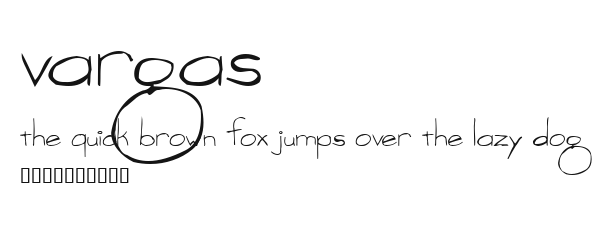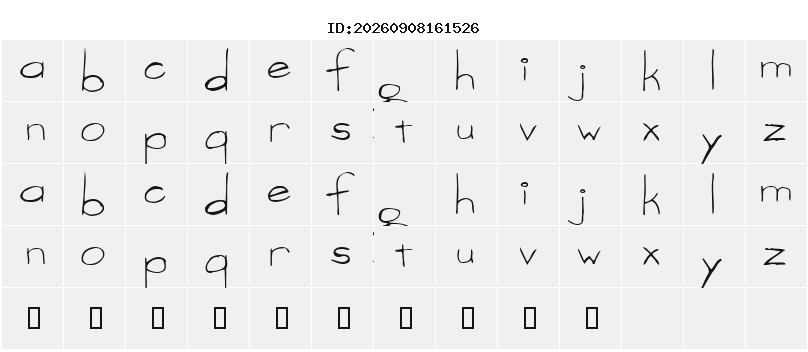
vargas Preview
• Font Name: vargas
• Font ID: Macromedia Fontographer 4.1 vargas
• Full Font Name: vargas
• Version: Macromedia Fontographer 4.1 1/26/98
• PostScript Name: Vargas
• Character Count: 53
About vargas.ttf
vargas.ttf is a modern, elegant sans-serif font designed for ultimate readability and visual harmony. Perfect for branding, headlines, web design, and print materials.